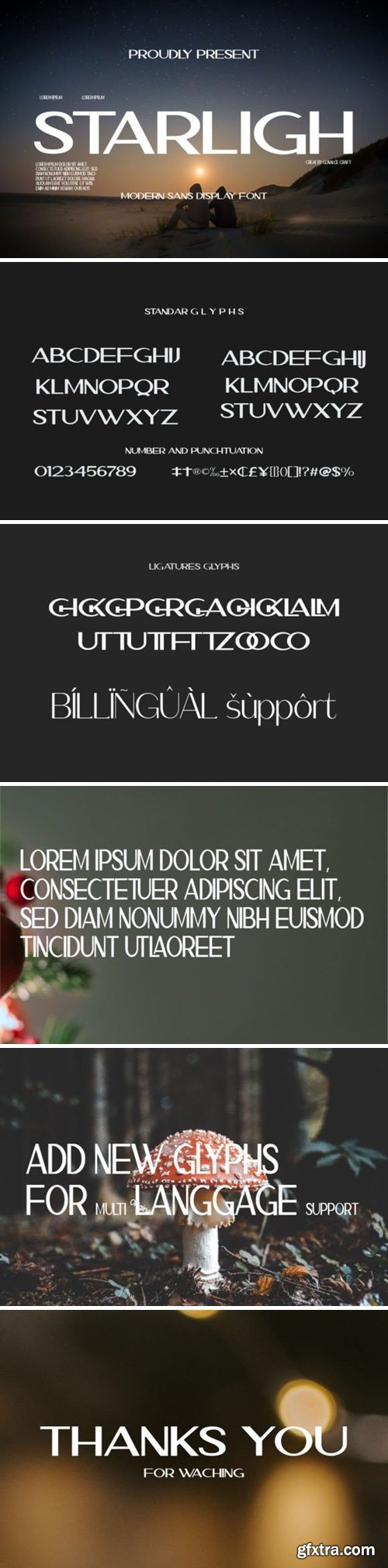
Introducing Starlight font. These font is modern sans display font with minimalisti typeface. specifically made for luxury, fashion and stylish statement with it’s unique flare that makes it perfect for beautiful headlines, branding, logotypes & display usage. This all-caps typeface is also perfect for creating outstanding logos, promotional content and marketing graphics that can really grab attention from your visitors. Font includes a full set of gorgeous uppercase and lowercase letters, numbers, a large selection of punctuation marks, amazing ligatures. You can access all of the amazing glyphs ease! It also features a wealth of special features.